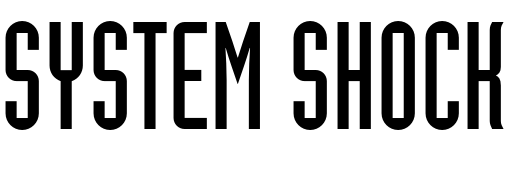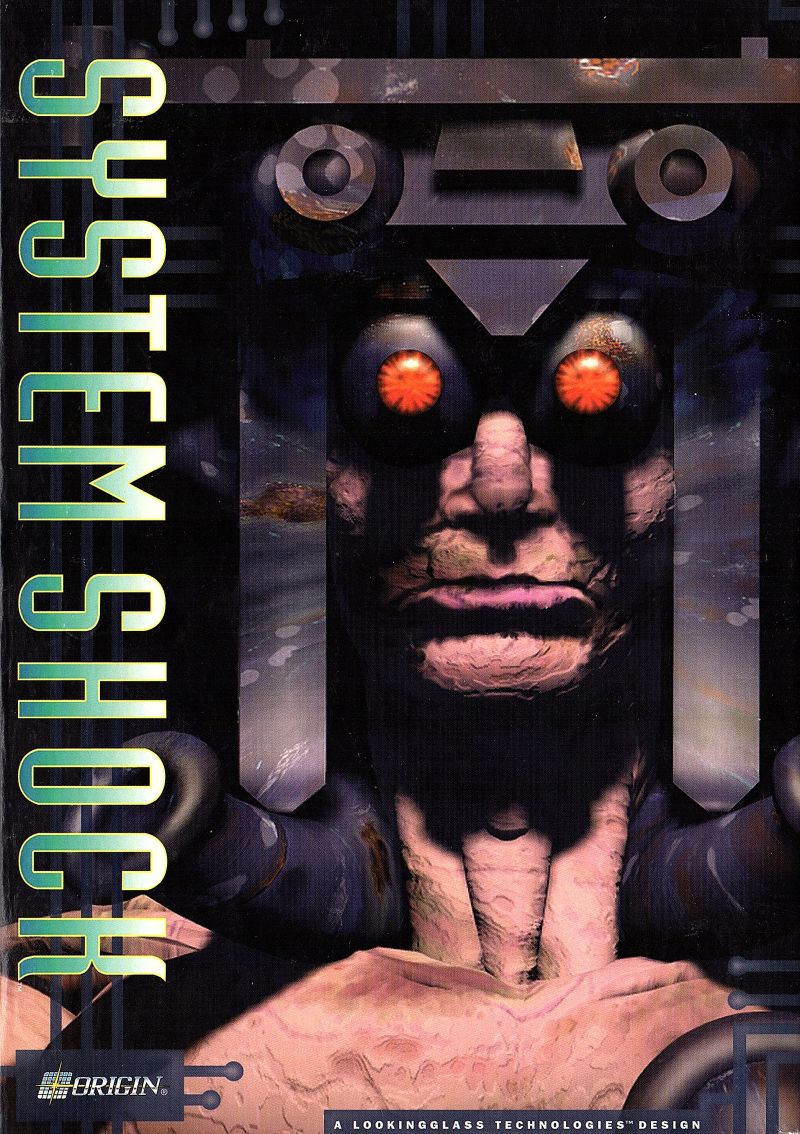
System Shock Font
ActionSystem Shock is a first-person action-adventure title developed by LookingGlass Technologies and published in 1994 by Origin Systems. The game revolves around a virtual reality simulation of an orbital research station in the year 2072. The player, as an anonymous hacker attempts to foil a malevolent artificial intelligence called SHODAN's plans for world domination.
The font used for the video game logo is Industria Solid. In 1984, Neville Brody designed the narrow sans-serif font Industria, originally for The Face magazine.